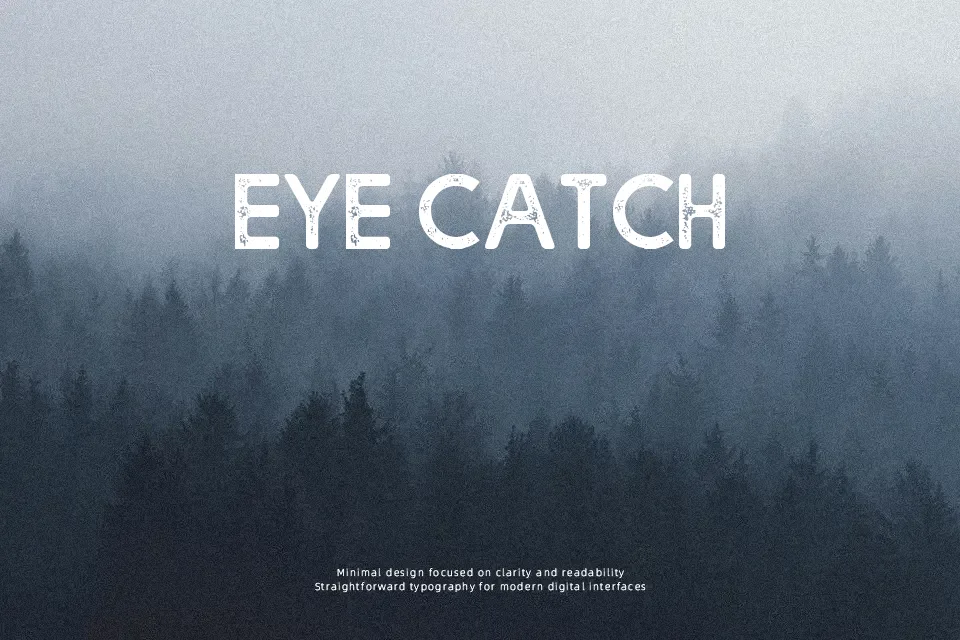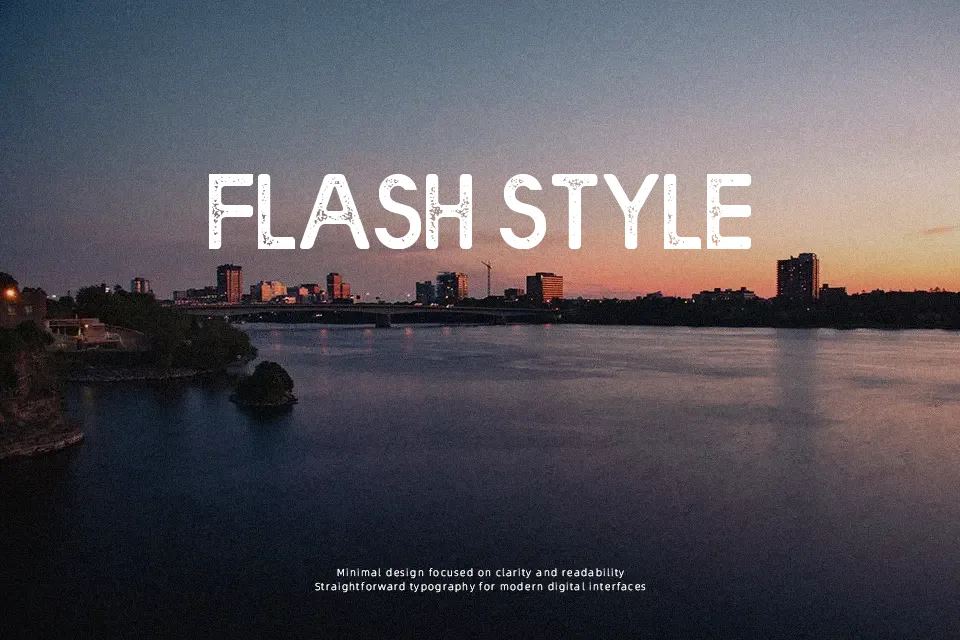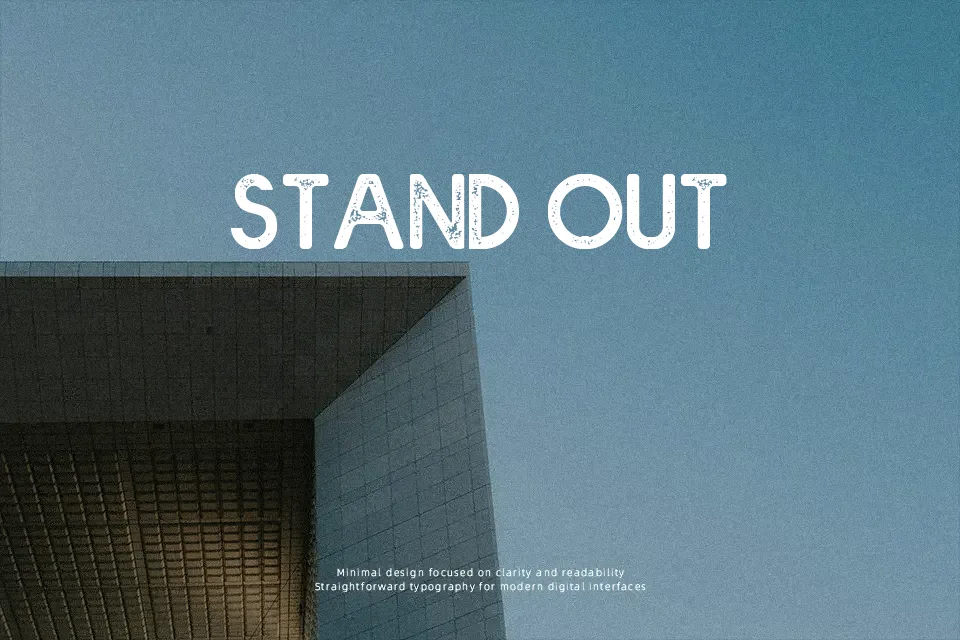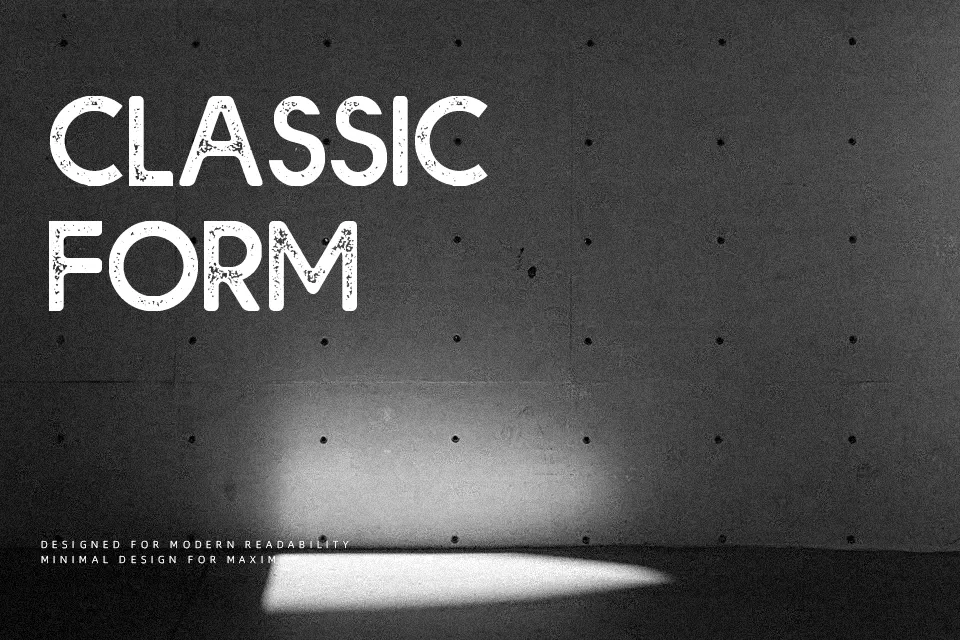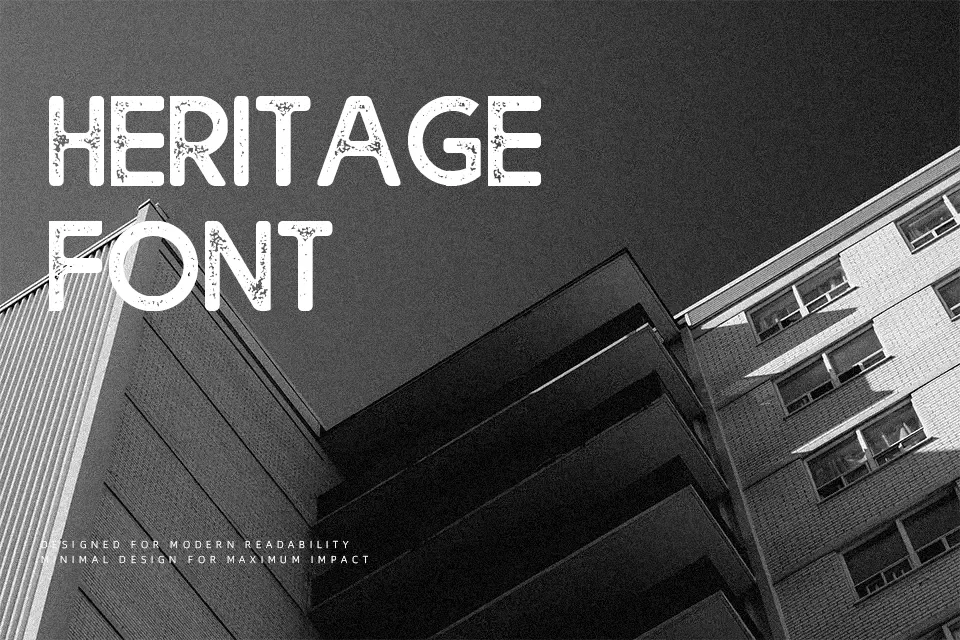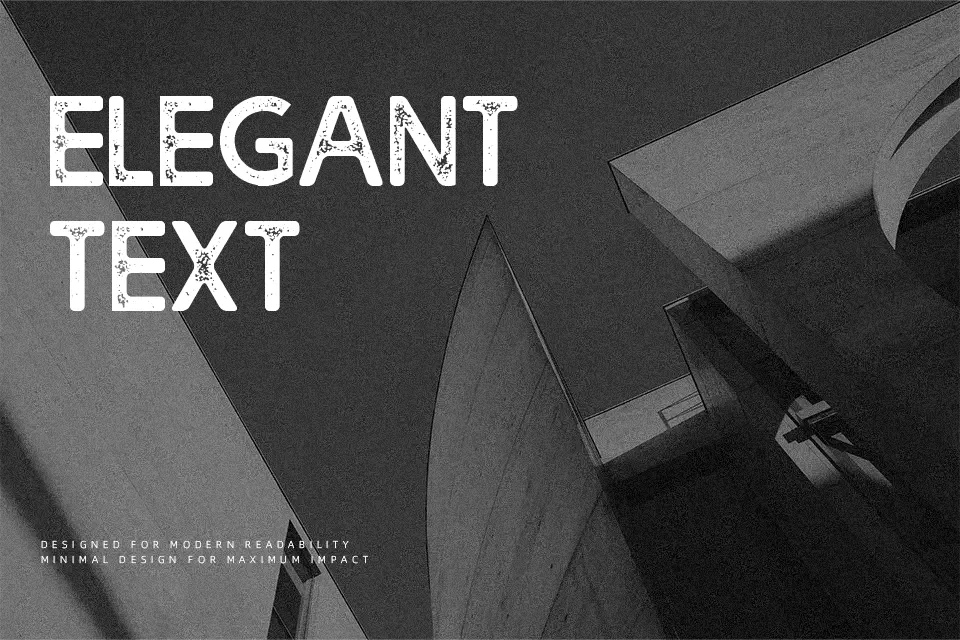
Bolde Rough Font
Designed by Figuree Studio
Bolde Rough is an impactful, uppercase display sans-serif characterized by its heavy structural weight and distressed texture. Designed by Figuree Studio, its thick, blocky letterforms carry a weathered, printed-on-concrete aesthetic that strips away polished perfection in favor of raw energy. The gritty finish provides a tactile, vintage quality while maintaining strong legibility at larger scales.
This typeface excels when deployed for commanding headlines, rugged outdoor apparel branding, vintage-inspired packaging, and bold music posters. Conversely, its heavy wear and aggressive visual noise make it entirely unsuited for lengthy body paragraphs, small digital interfaces, or delicate designs where clean readability is required. It stands out when a layout needs unapologetic typographic muscle with a lived-in feel.
Rugged outdoor apparel branding
Vintage-inspired product packaging
High-impact music gig posters
Commanding headline typography
Lengthy editorial body text paragraphs
Minimalist or high-end luxury branding
Small-scale digital user interfaces
Delicate or formal event invitations
Perfect for branding, headline, and music, with a bold and decorative style.